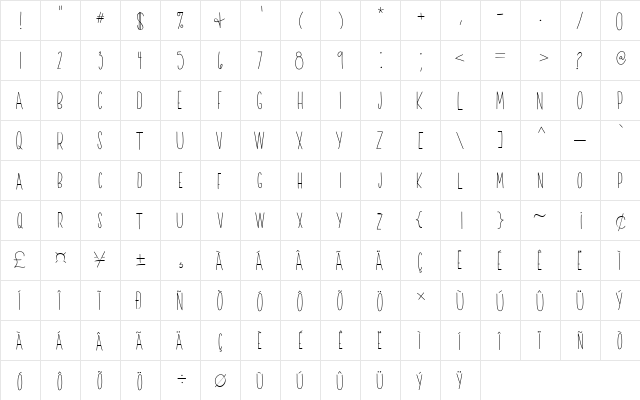
Pumpkin Pie Lattes Regular
Design Context for Pumpkin Pie Lattes Typeface
Pumpkin Pie Lattes takes a measured approach to typography — its balanced proportions and neutral character make it a reliable workhorse for both digital and print work.